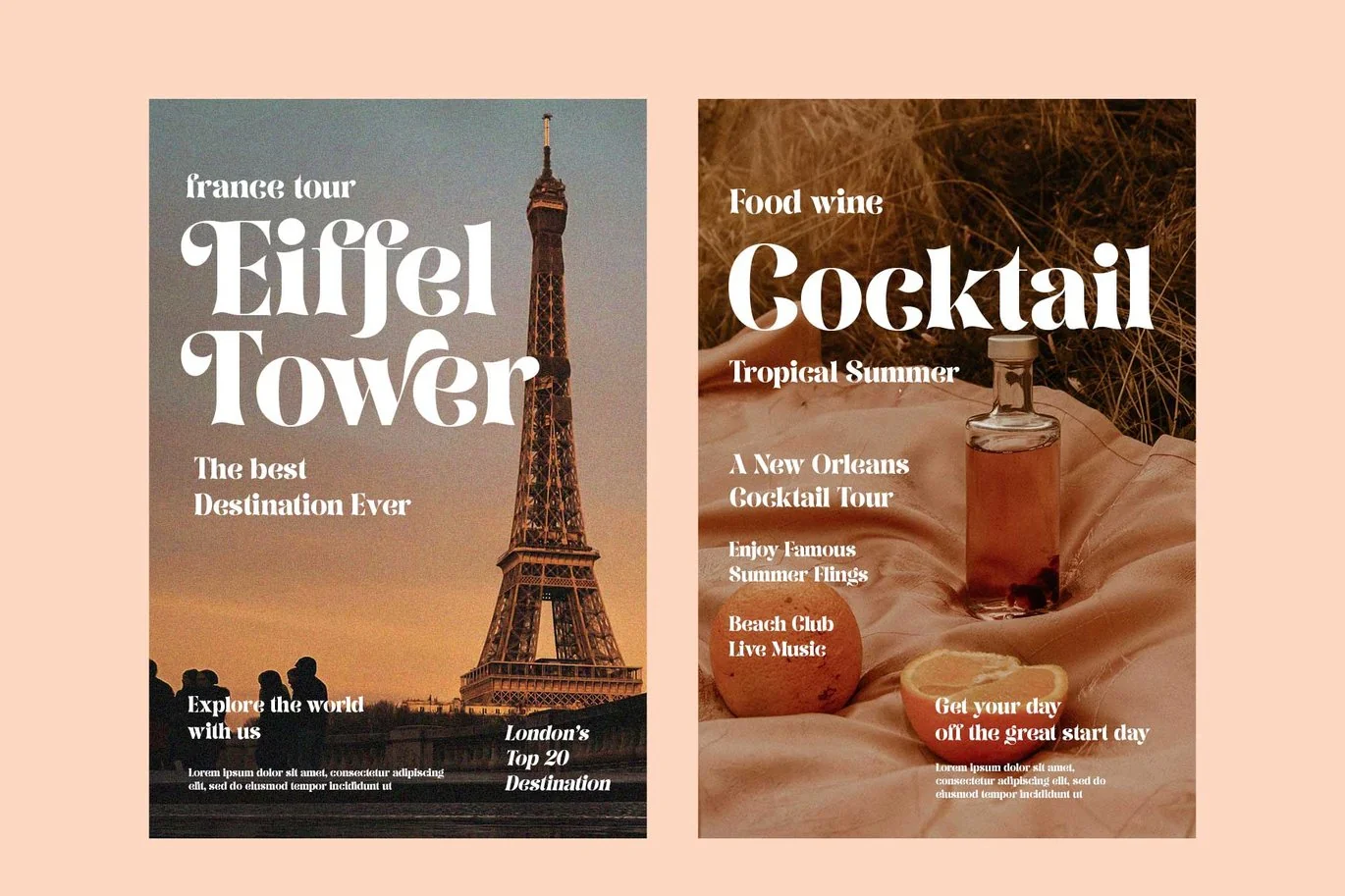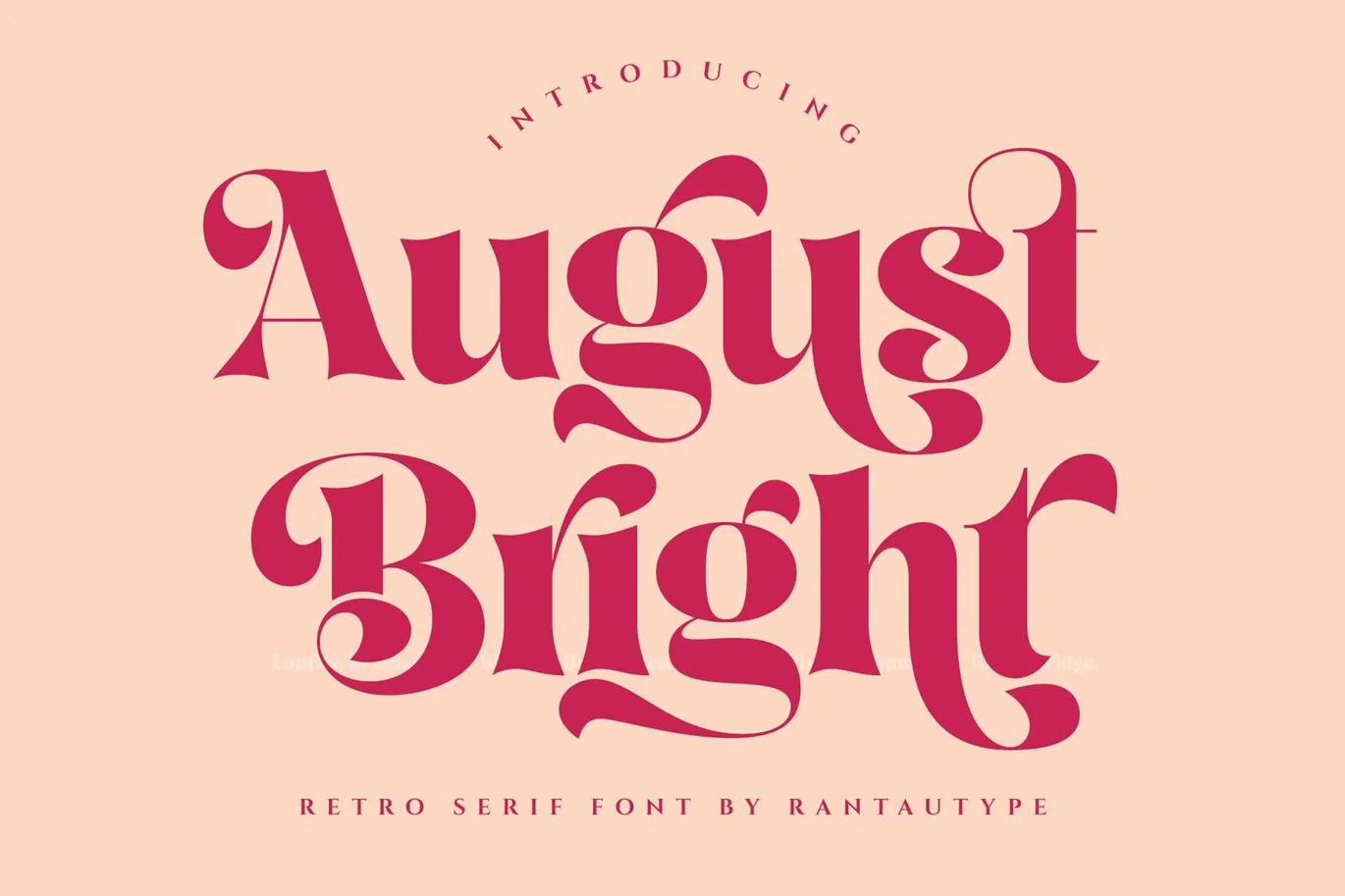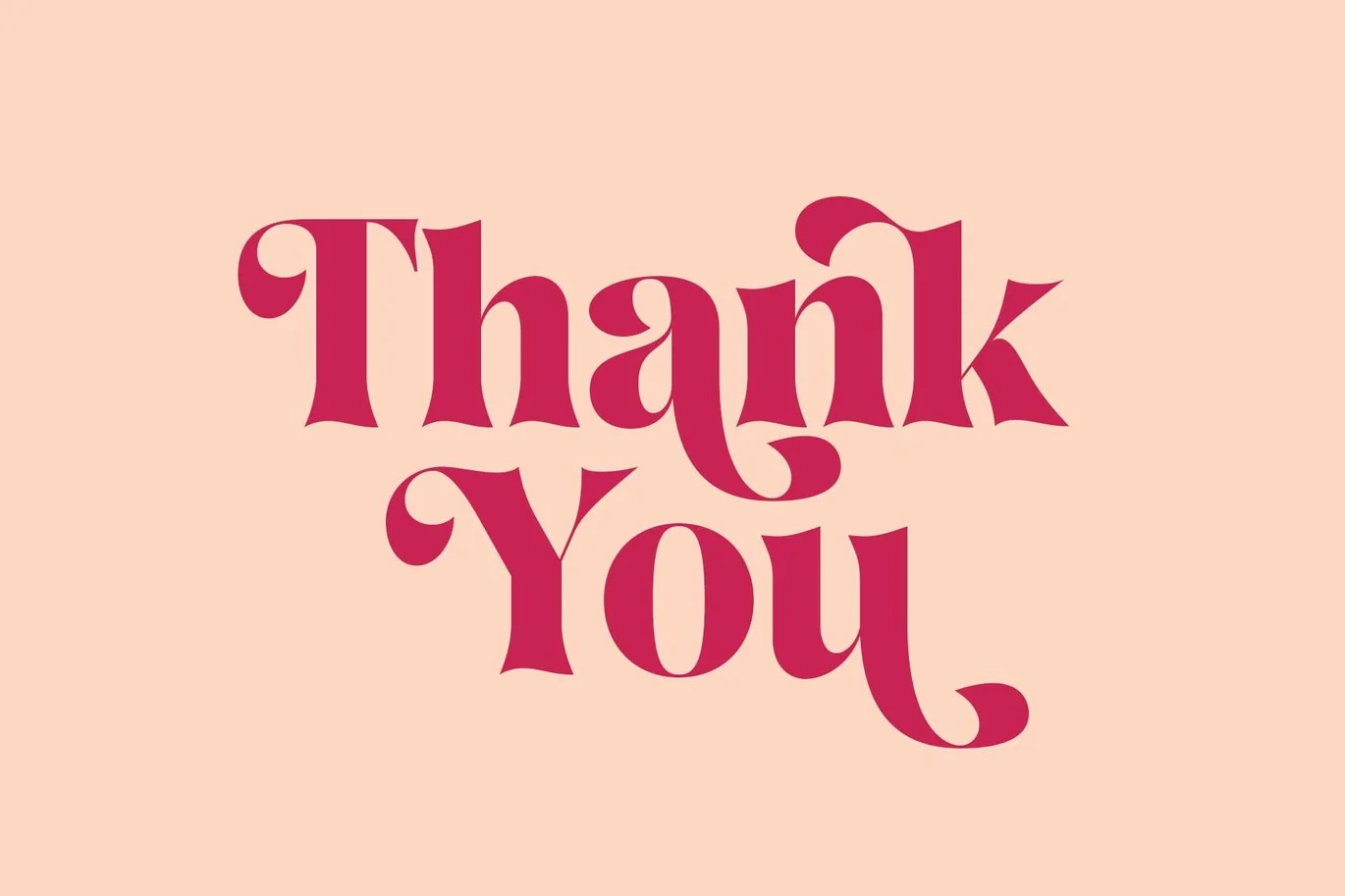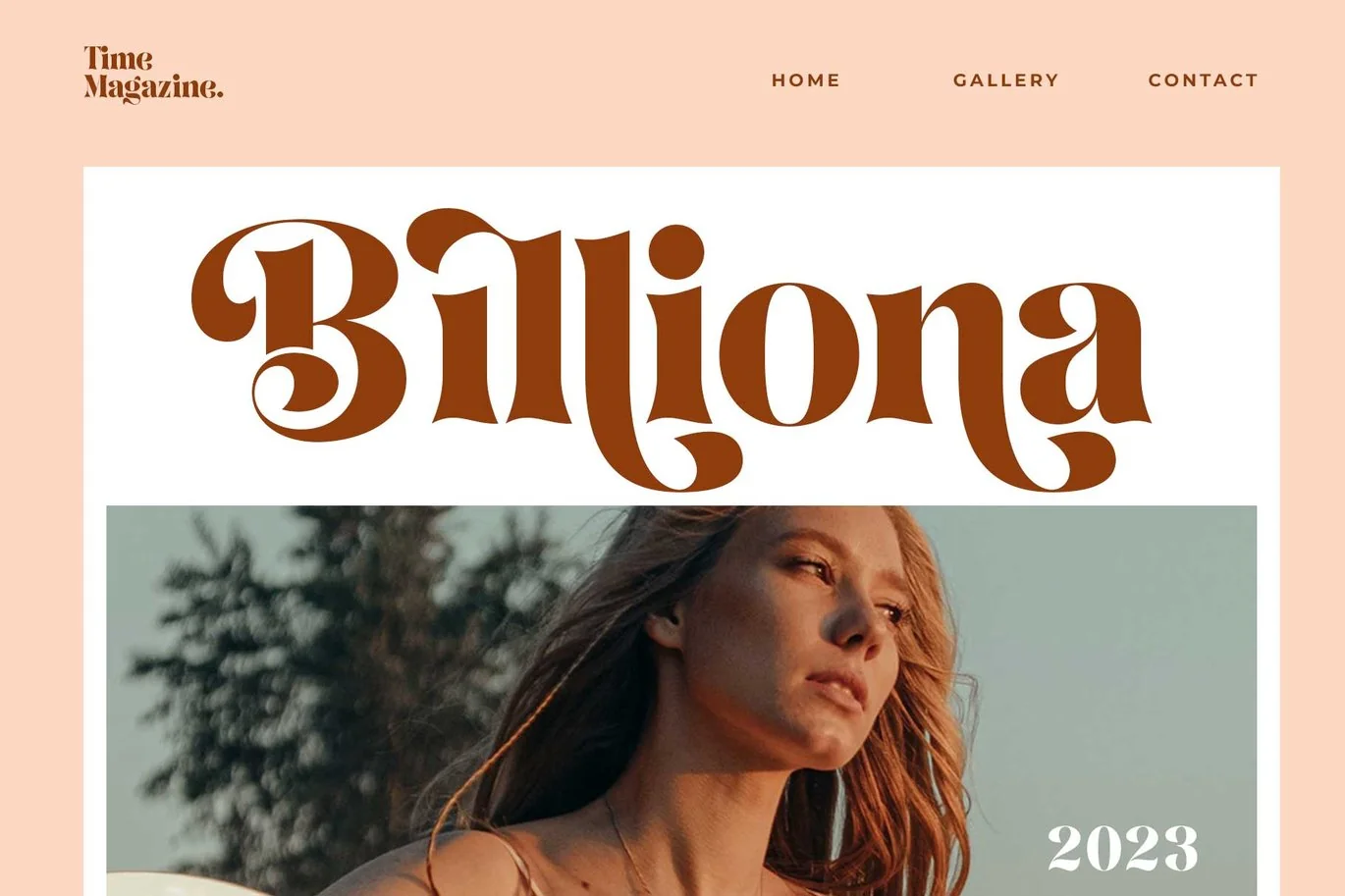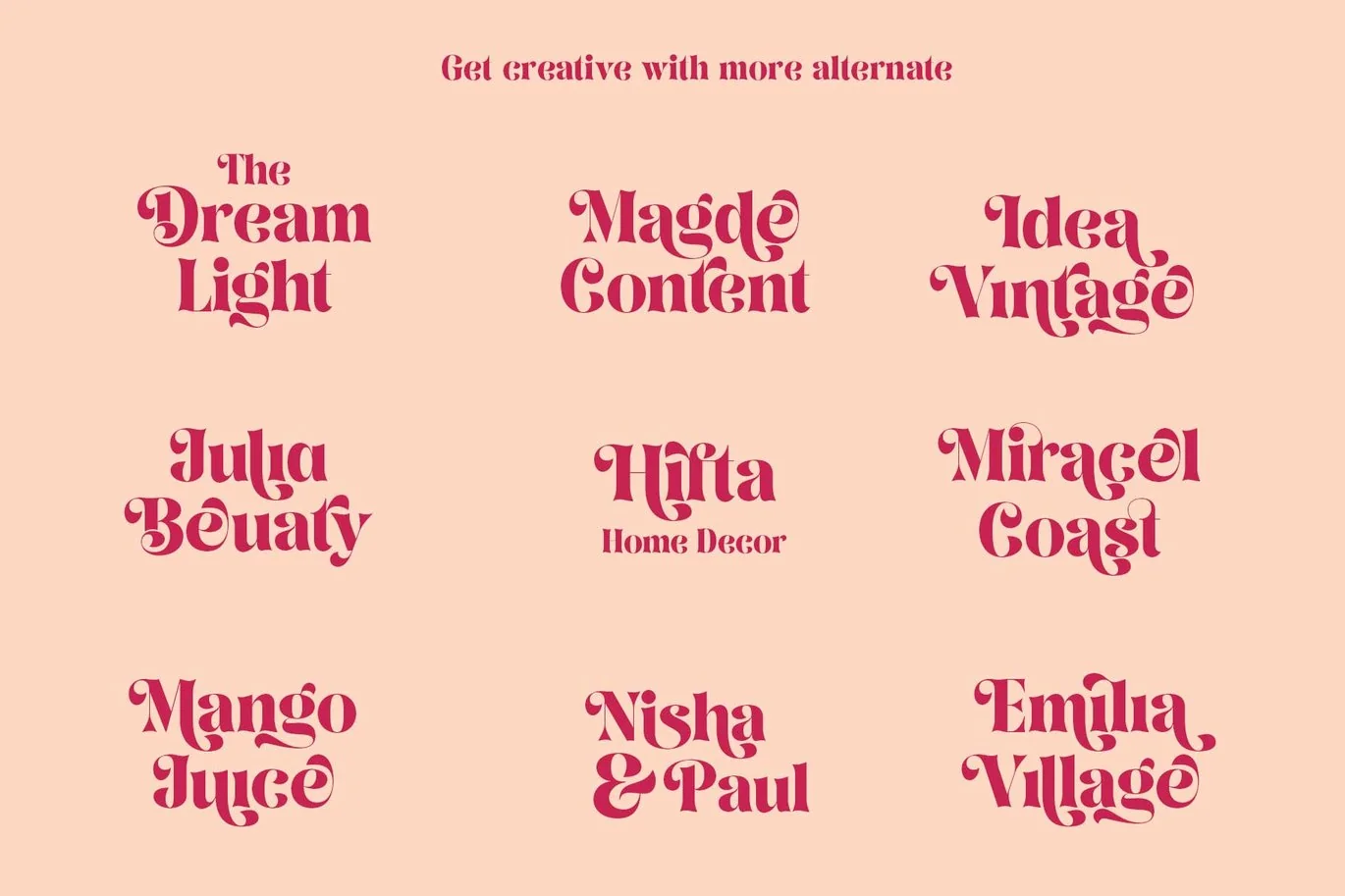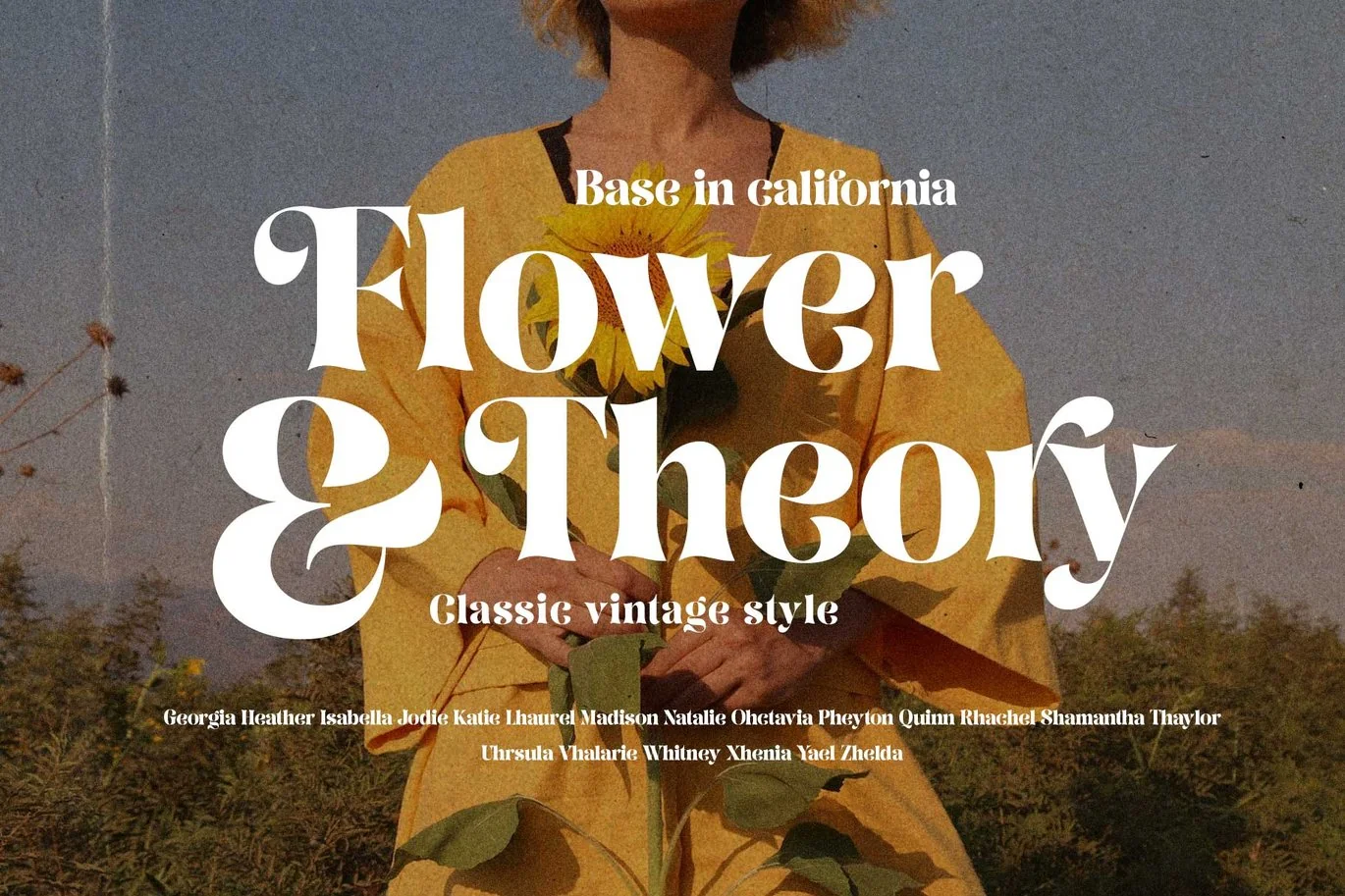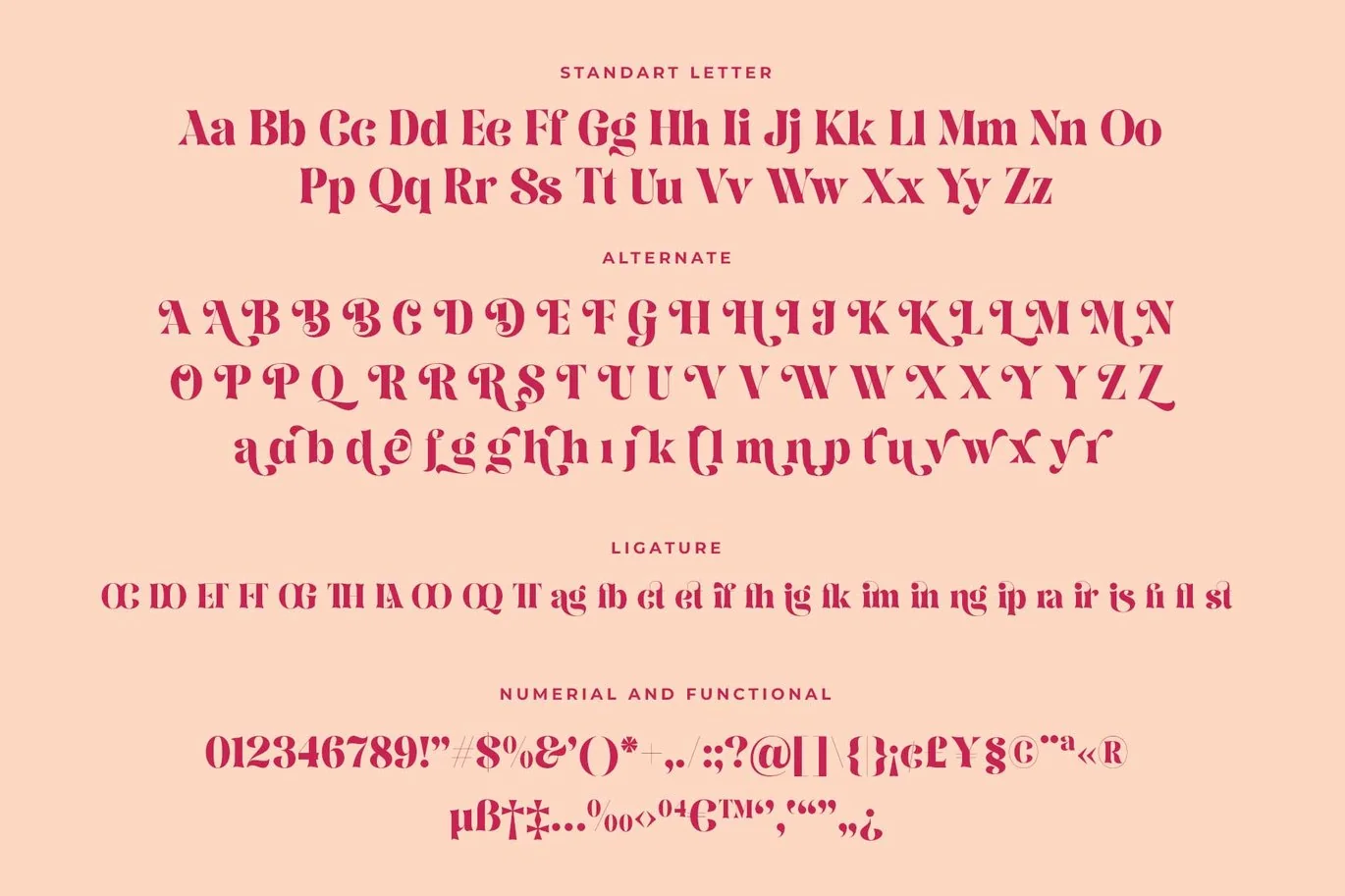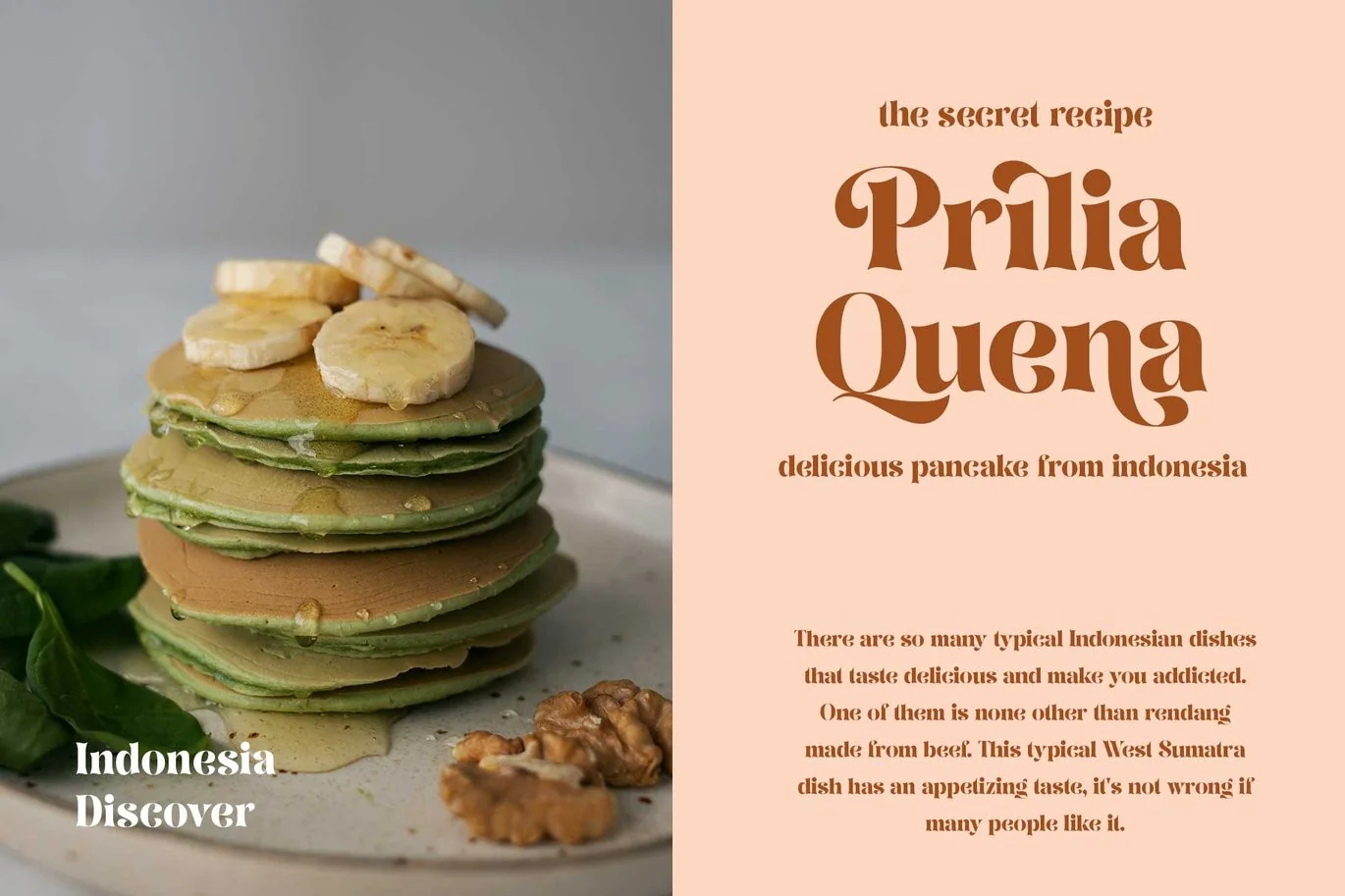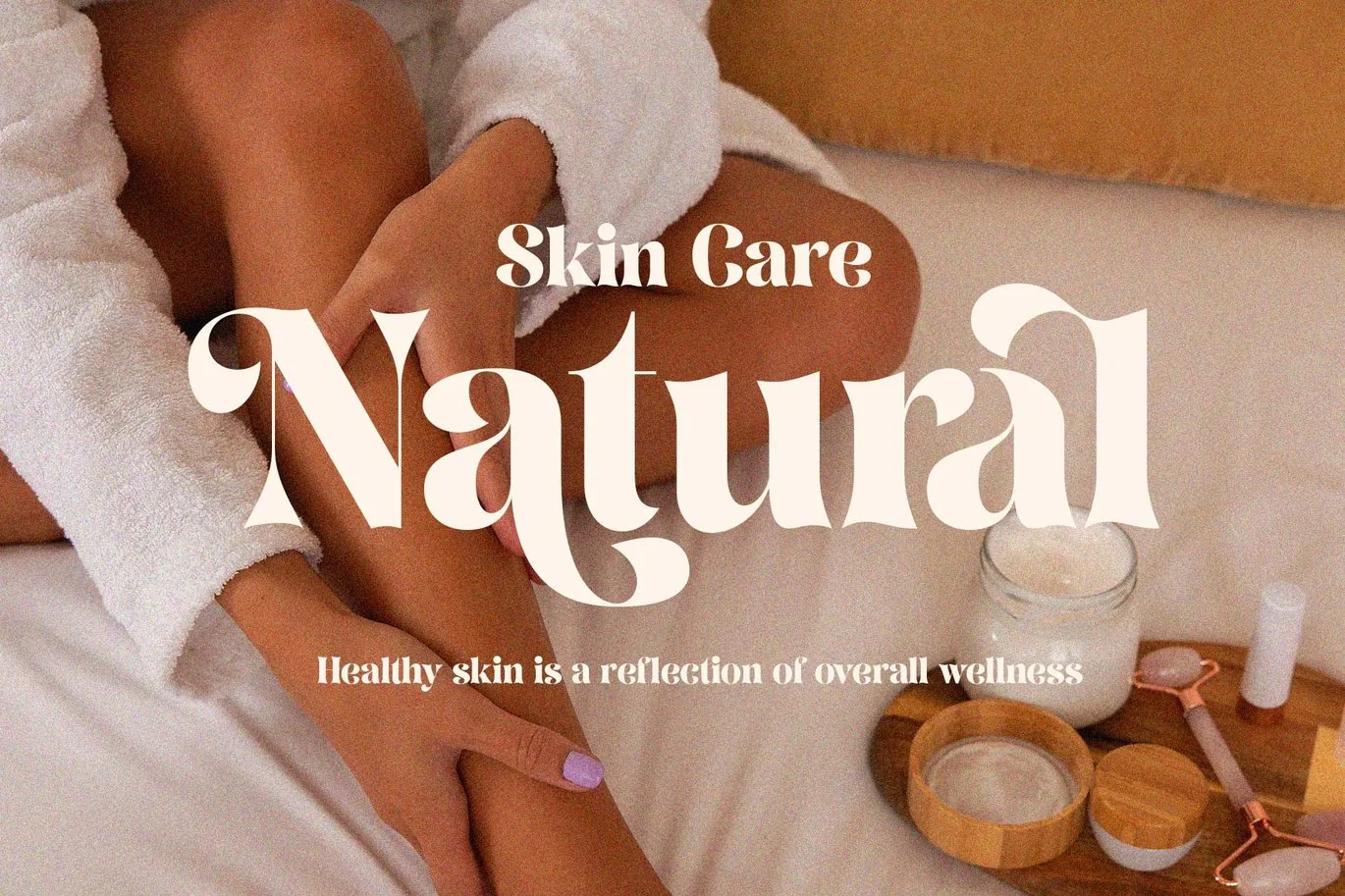
August Bright Retro Serif Font
Proudly present retro serif font called August Bright by rantautype.
August Bright is a beautiful font that curve make it look Unique, playful and versatile serif Font. Come with more alternate and ligature you can mix and max to create a more stunning display.
August bright – separate in reguler and italic, is a beautiful choice for any creative endeavor, creating playful, chic, lifestyle design such as logos, title, cover, branding, display and magazine, and more. Now you have more choice when using august bright for typography.